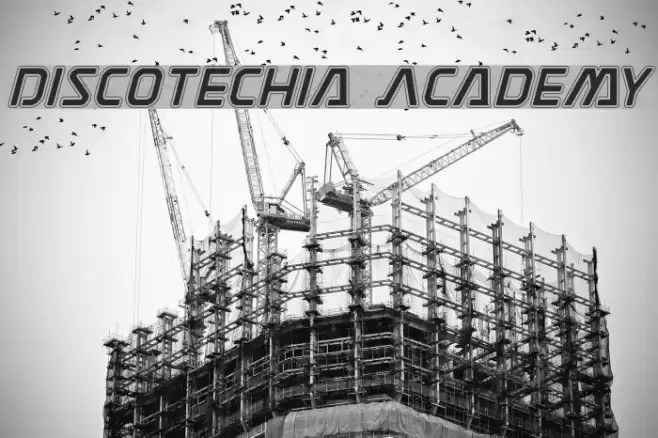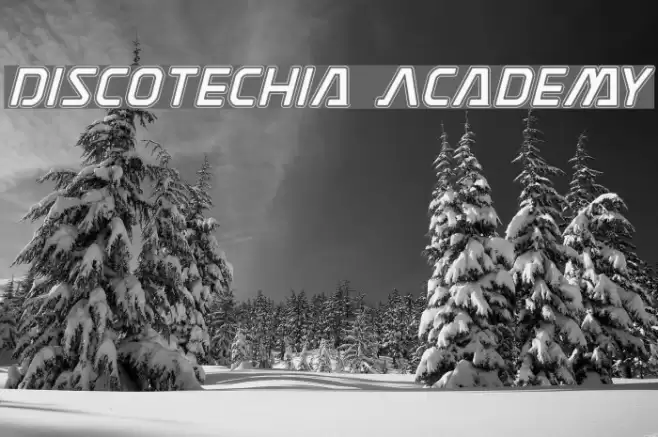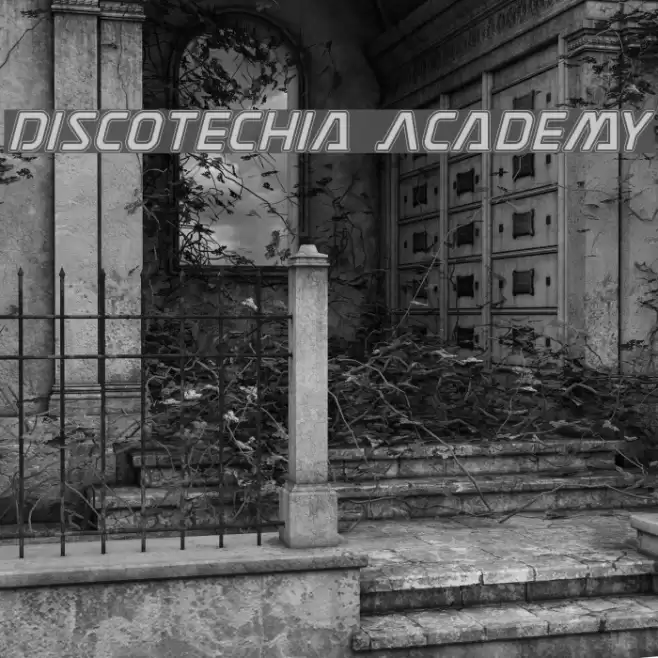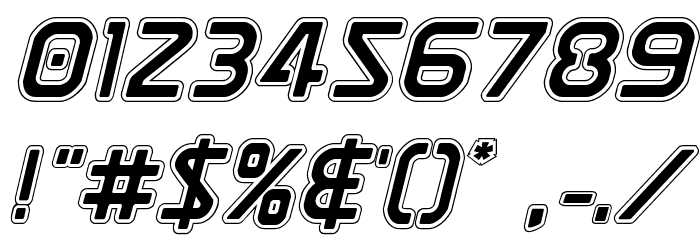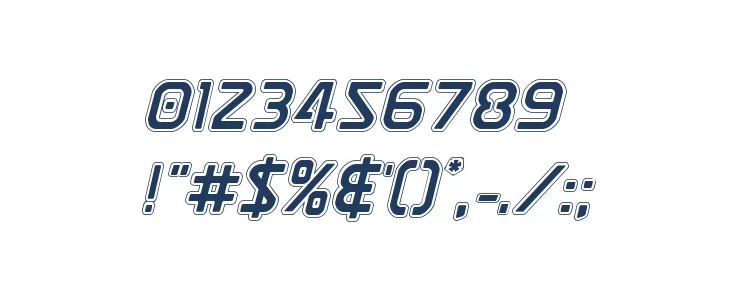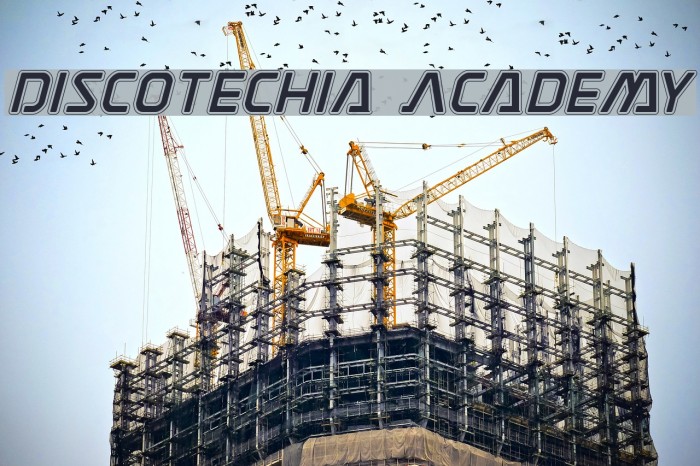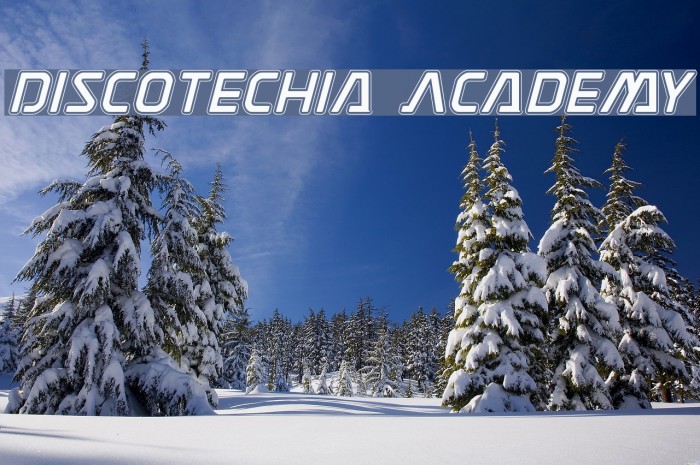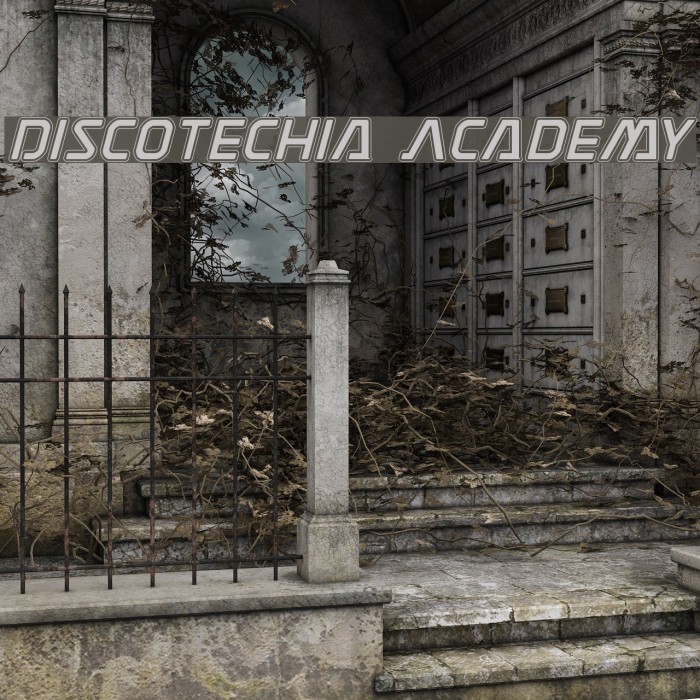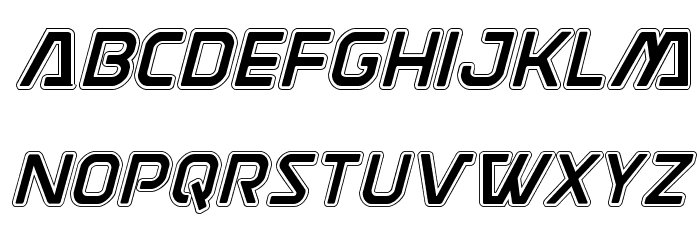
Discotechia Academy Font
Discotechia Academy Description
This font features a bold, futuristic design with a distinct outline that gives each character a three-dimensional appearance. The letters are slightly slanted, adding a dynamic and energetic feel. The geometric shapes and sharp angles contribute to a modern and sleek aesthetic, making it ideal for projects that require a contemporary and eye-catching look. The numbers and special characters maintain the same stylistic elements, ensuring consistency throughout. This font is perfect for use in digital media, posters, and branding that aims to convey innovation and forward-thinking.
A bold, futuristic font with a three-dimensional outlined style and dynamic slant from Uncategorized fonts.
- Proposed Projects: Ideal for digital media, posters, branding, and any project requiring a modern, innovative look.